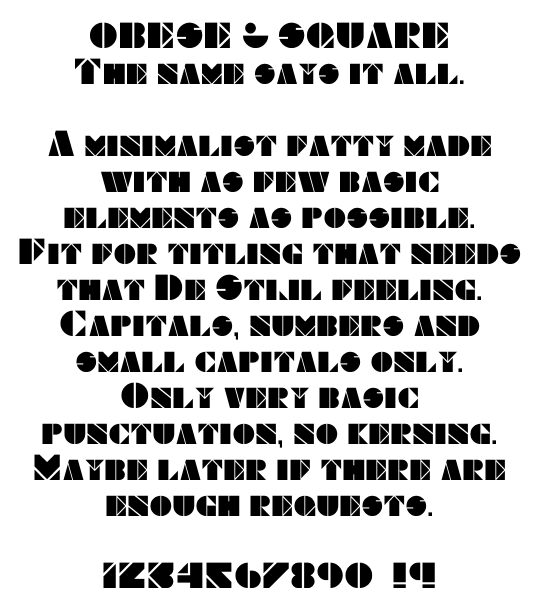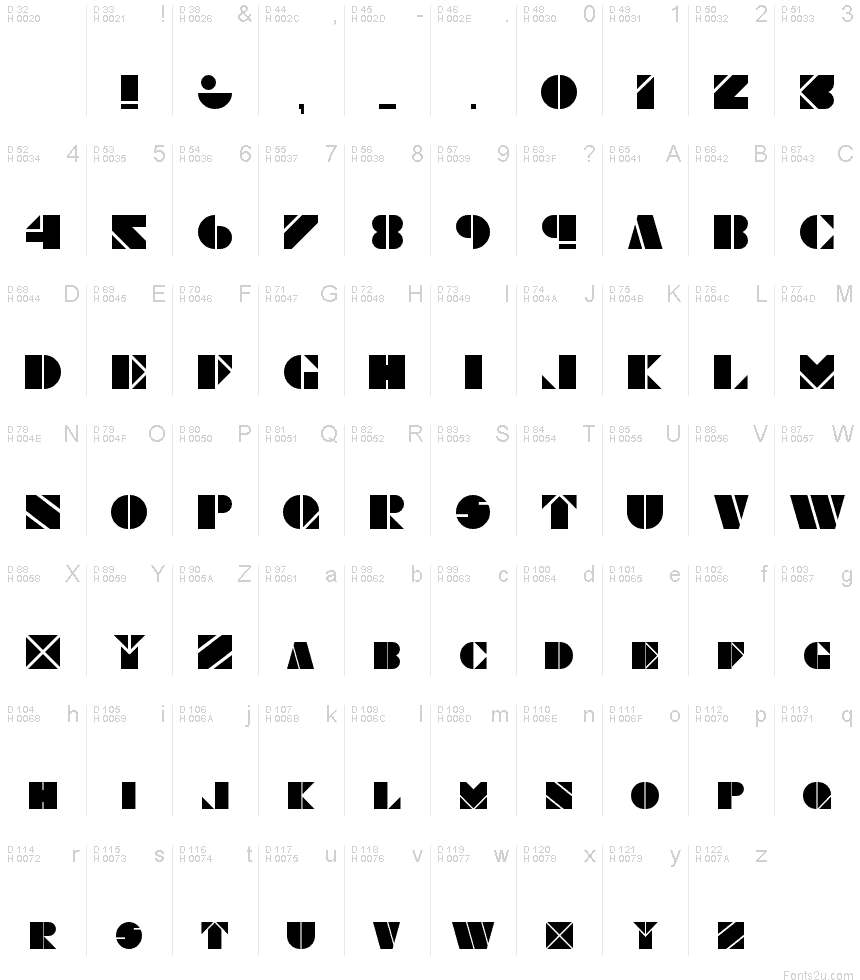
Obese & Square KK
Obese & Square, the name says it all. A minimalist fatty made with as few basic elements as possible. Fit for titling that needs that 'De Stijl' feeling. Capitals,numbers and small capitals only. Only very basic punctuation, no kerning. Maybe later if there are enough requests.